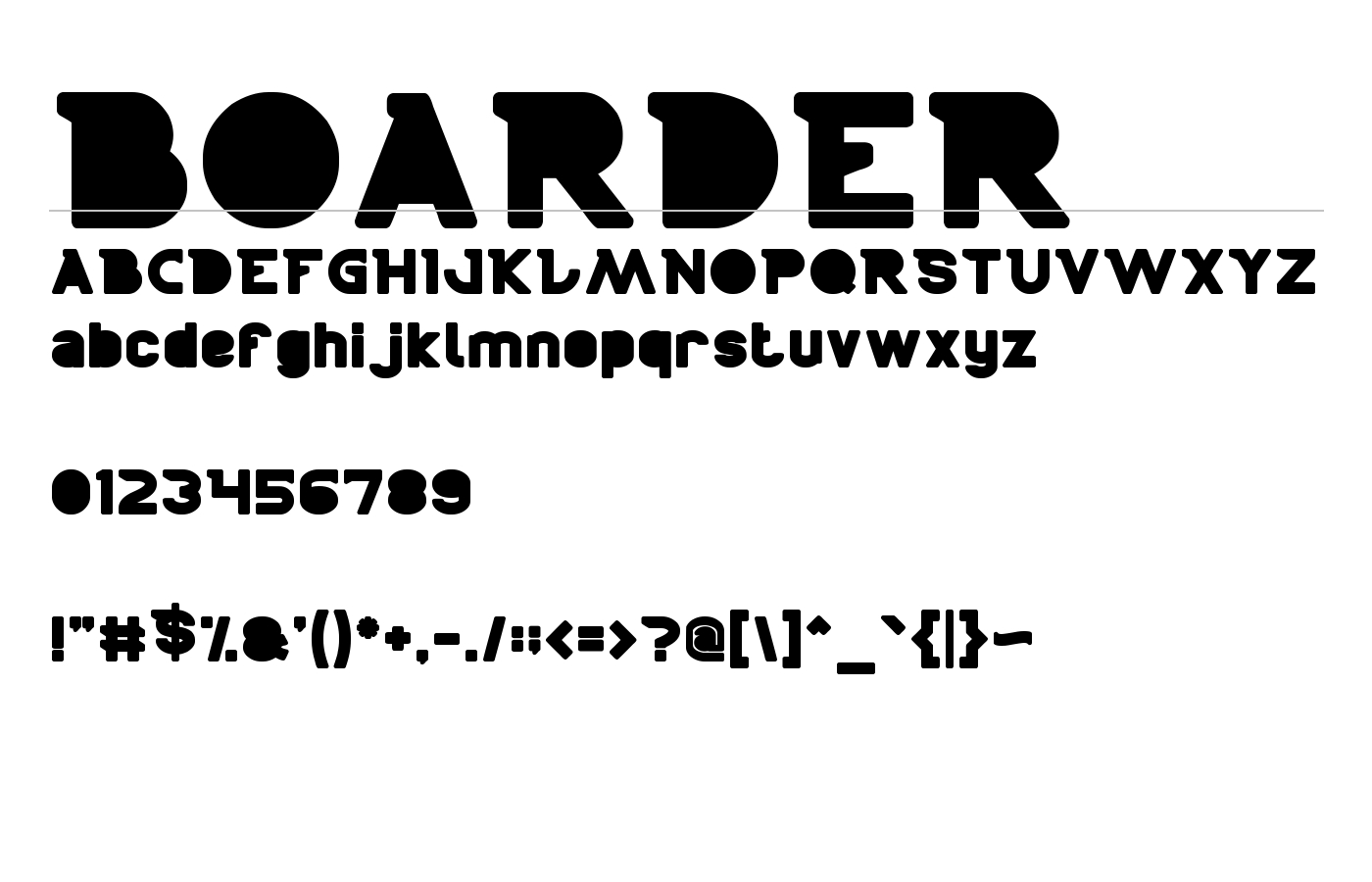
BOARDER is a bold, playful sans serif font with heavy weight and rounded corners that give it a sturdy yet friendly feel. Its thick, consistent strokes and unique quirky shapes make it ideal for eye-catching headlines, logos, or branding that wants to convey a fun, confident, and approachable personality. This font works well in creative projects and display uses where strong presence and a touch of whimsy are desired.
BOARDER Font
About BOARDER Font